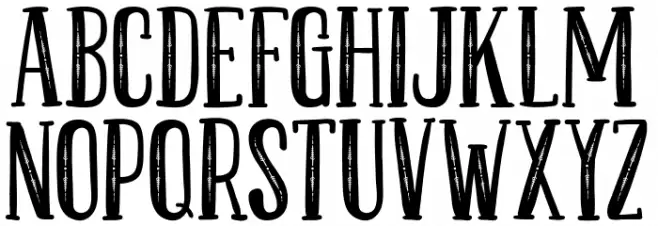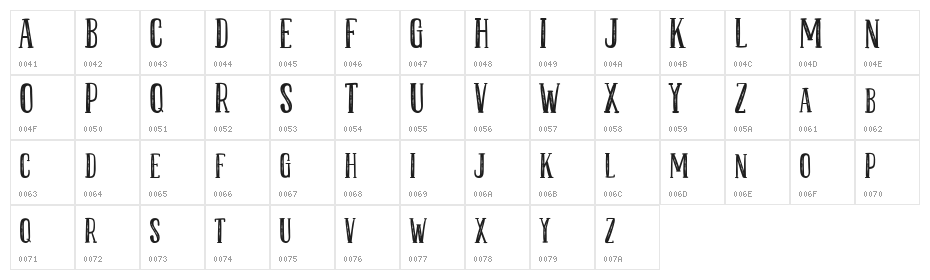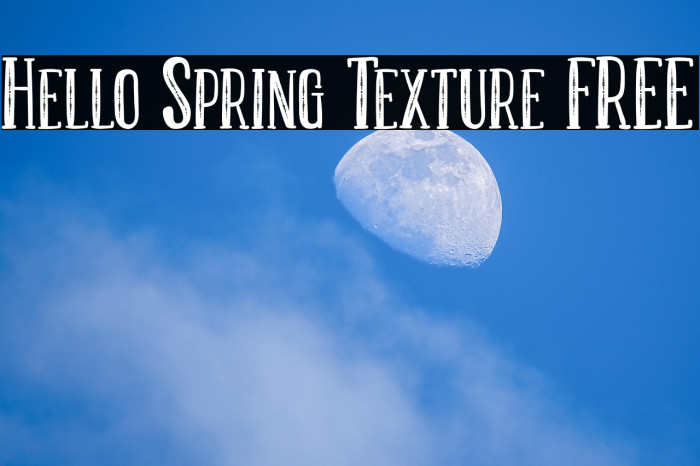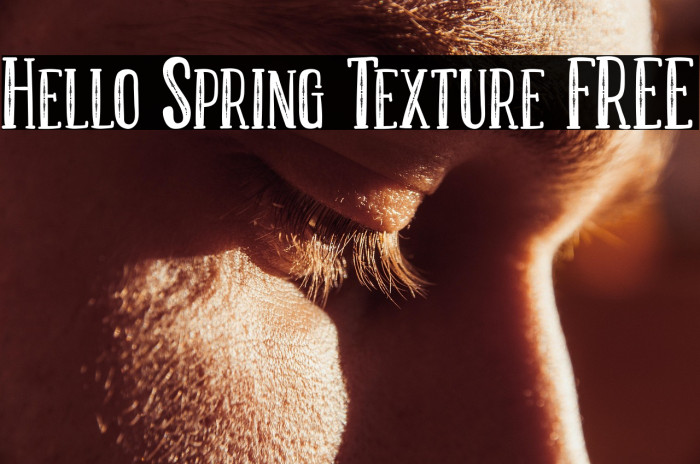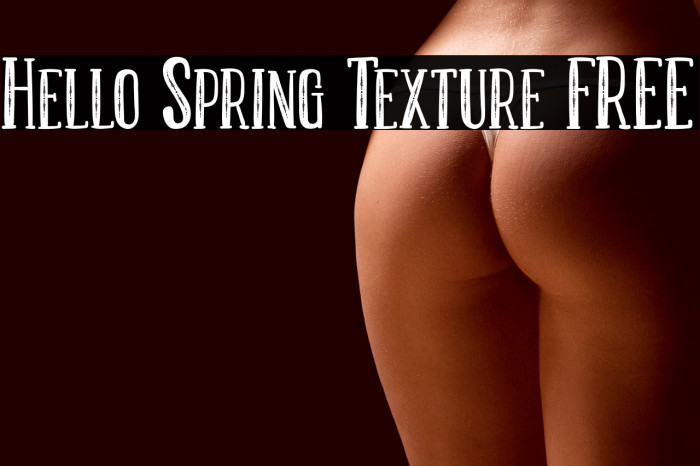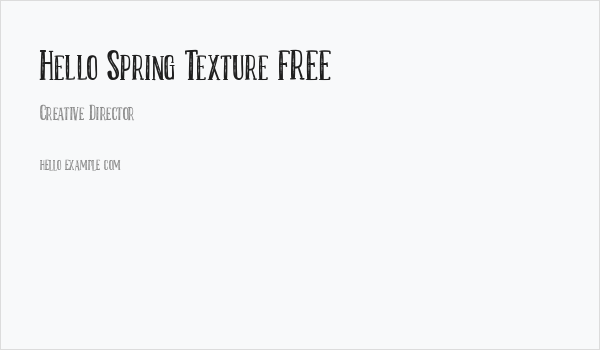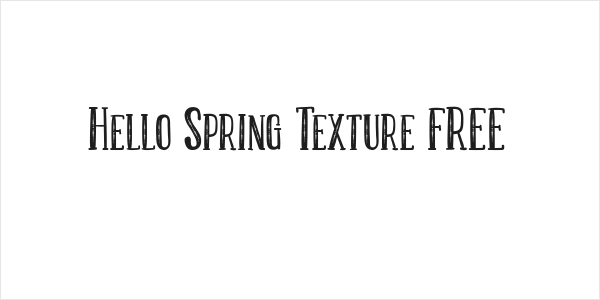
Hello Spring Texture FREE Font
Hello Spring Texture FREE Description
This font features a textured, distressed appearance that gives it a rustic and vintage feel. The characters are tall and narrow, with a slight serif that adds a touch of elegance. The texture within each letter creates a handcrafted look, making it ideal for designs that require a personal or artisanal touch. The uppercase letters are bold and prominent, while the lowercase letters maintain the same textured style, ensuring consistency across different text elements. The numbers and special characters follow the same design, providing a cohesive look throughout.
| Proposed Projects | Ideal for branding projects, vintage-themed designs, posters, and invitations where a rustic or handcrafted look is desired. |